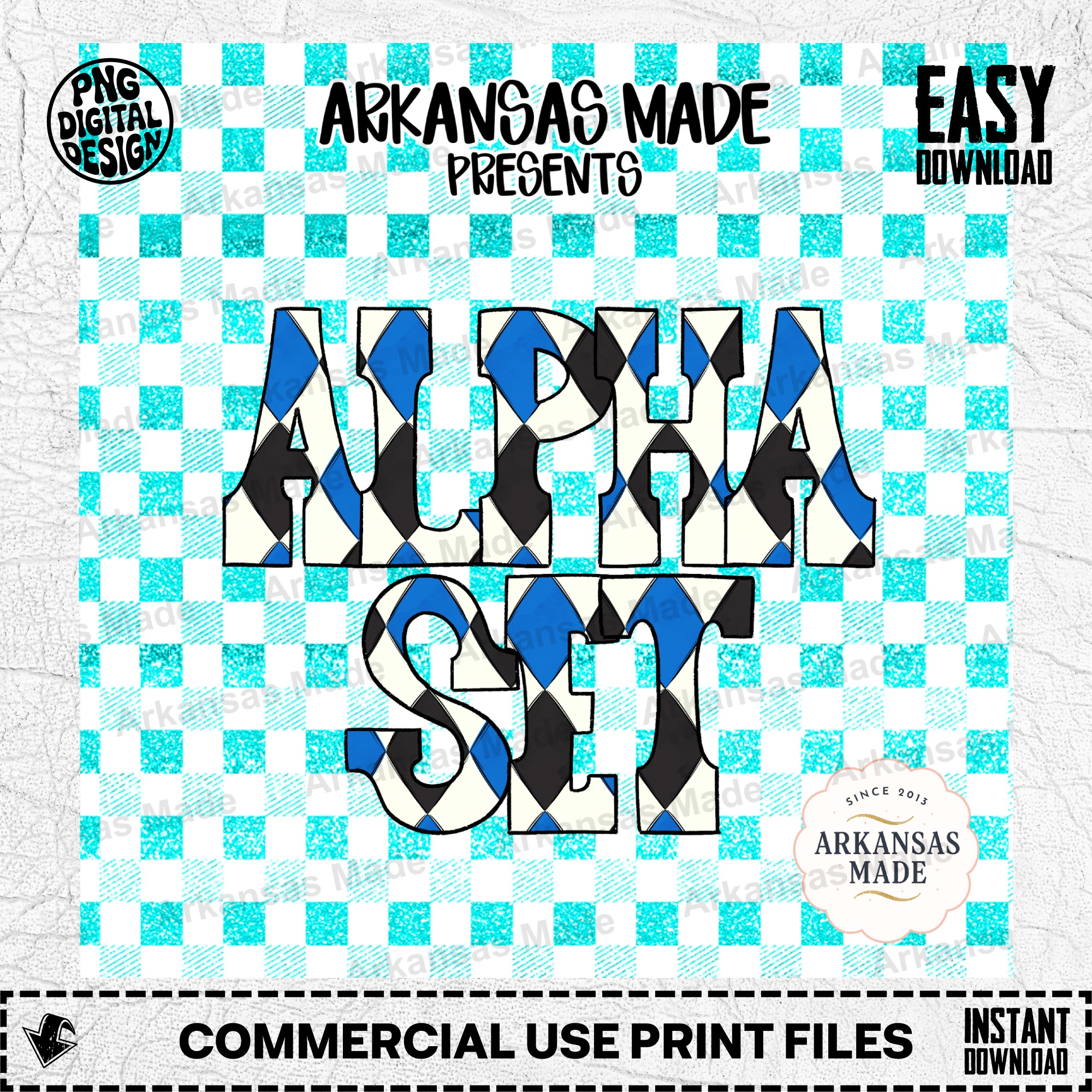
Unleash creativity with this vibrant Argyle Blue Black Alpha PNGs Set, perfect for adding a preppy, sporty touch to all your digital projects and crafts. This Harlequin-patterned digital alphabet offers a bold and distinctive design, ideal for crafters, small business owners, and DIY enthusiasts. Create unique personalized gifts, team merchandise, school spirit wear, or custom monograms with ease. Its crisp lines and faux argyle print make it a versatile asset for sublimation, direct-to-garment, or digital scrapbooking projects, making it a fantastic asset for anyone seeking a standout look.